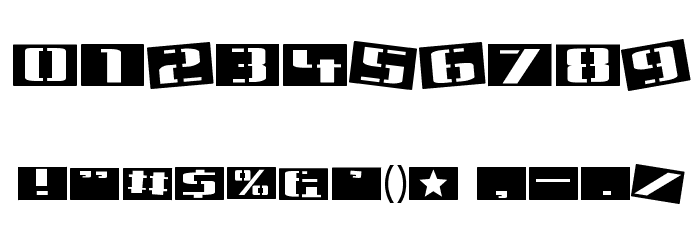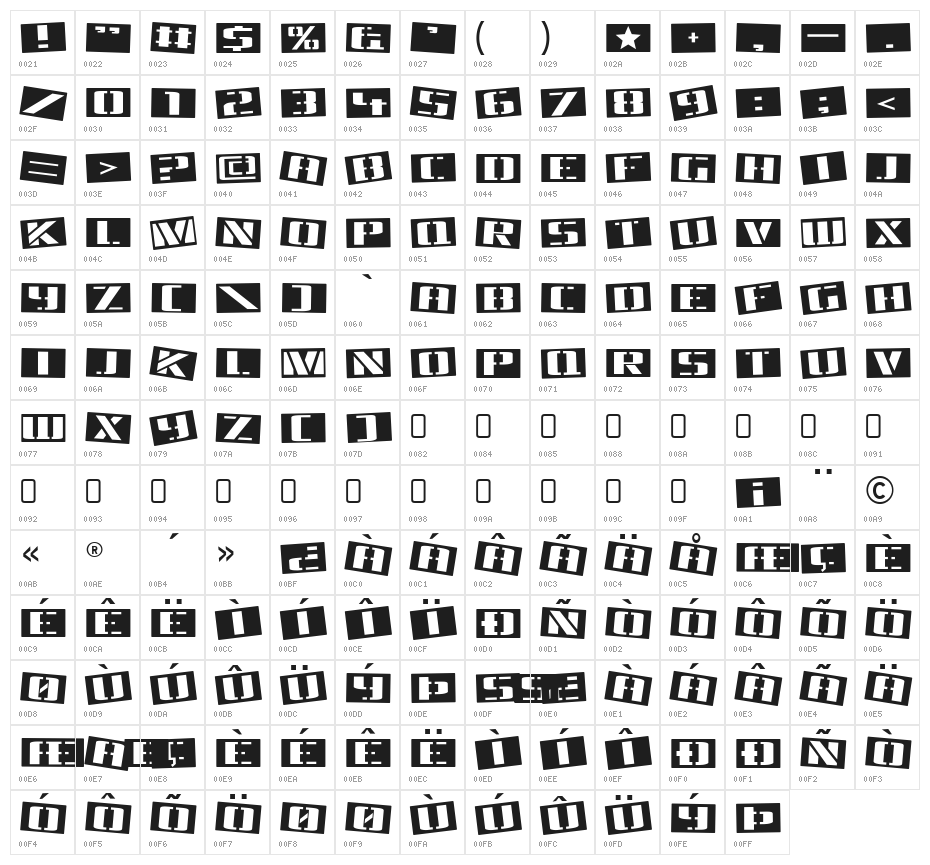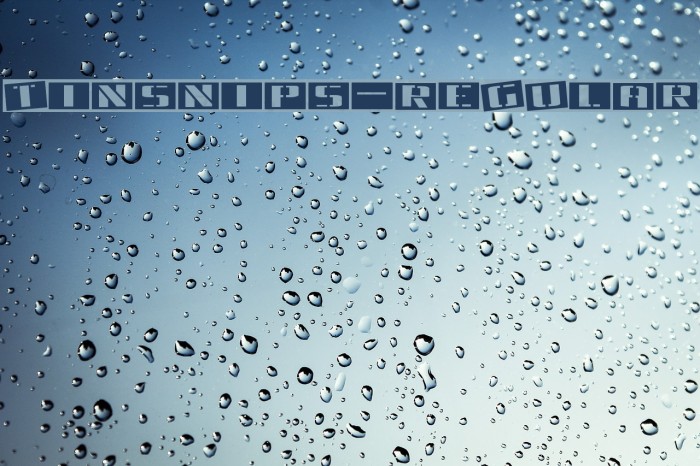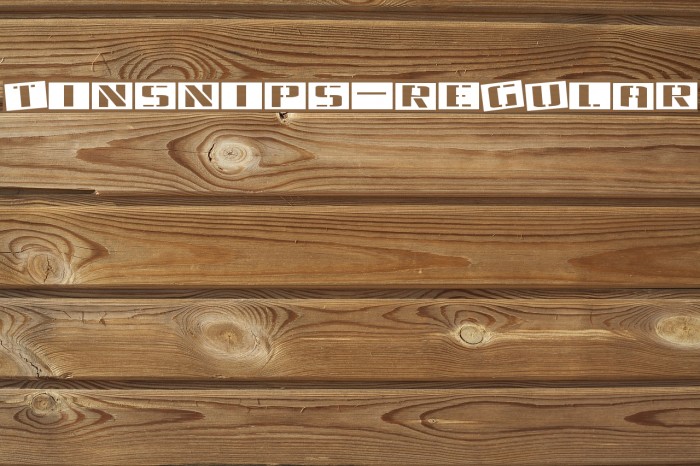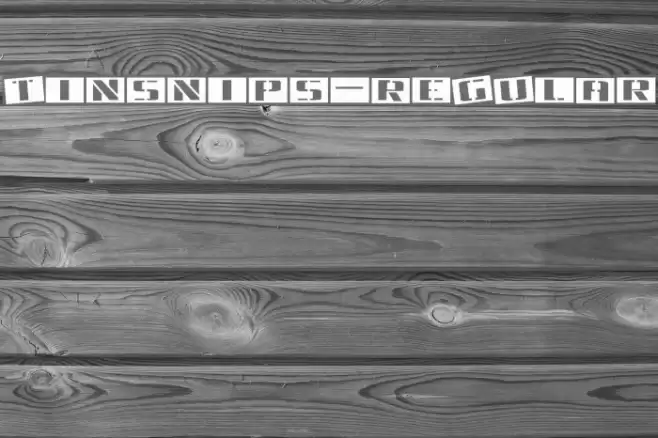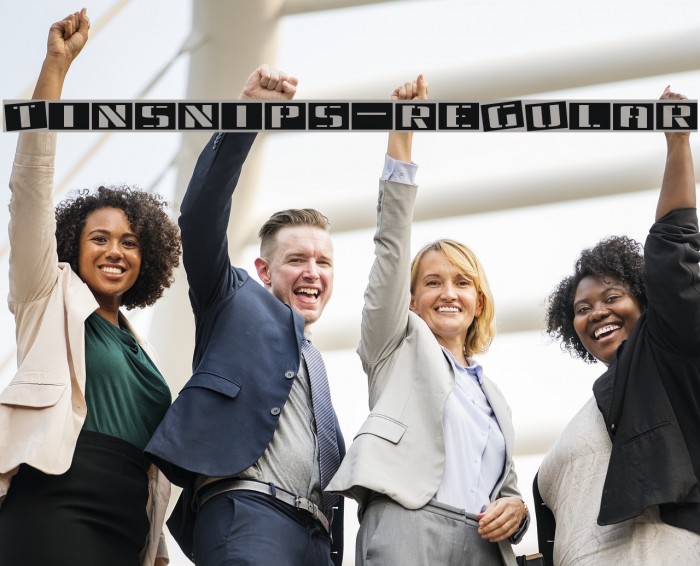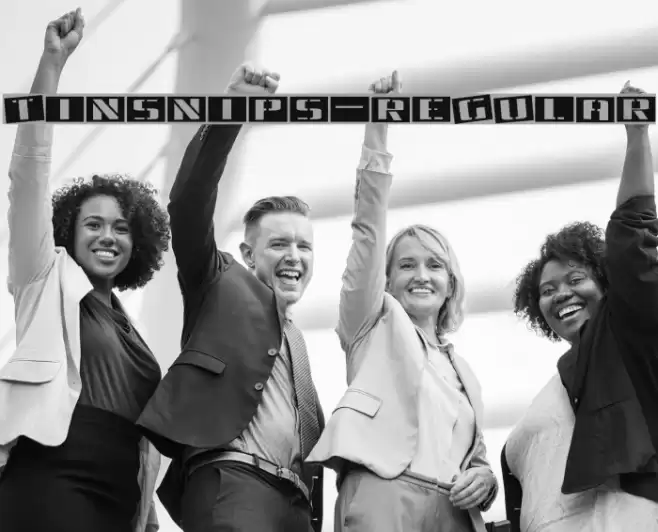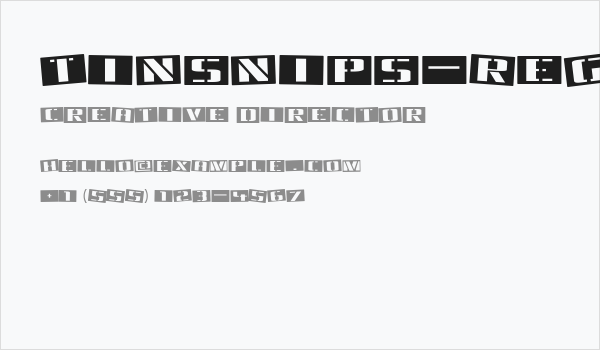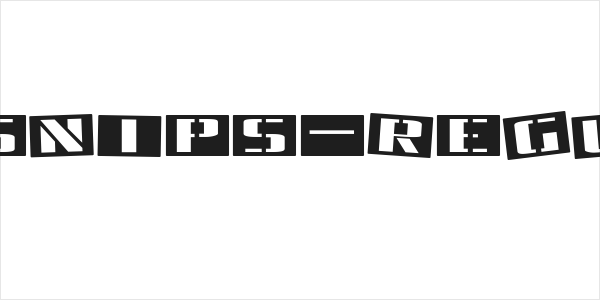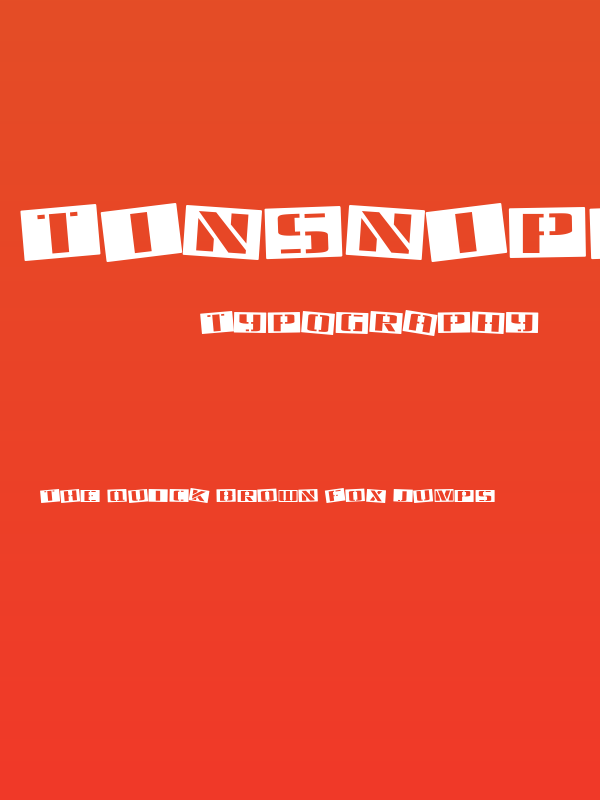
Tinsnips-Regular Font
Tinsnips-Regular Description
This font features a bold, stencil-like design with a distinct industrial and mechanical feel. Each character is enclosed within a blocky, irregular shape, giving it a rugged and edgy appearance. The letters and numbers are cut out from these shapes, creating a high-contrast look that is both striking and attention-grabbing. The font's unique style is reminiscent of cut-out metal or machinery parts, making it ideal for projects that require a bold and unconventional aesthetic. The characters are uniformly spaced, maintaining a consistent alignment despite the irregular shapes surrounding them.
| Overall Style | Industrial, Edgy |
| Proposed Projects | Ideal for posters, industrial-themed designs, branding for machinery or automotive companies, and any project needing a bold, unconventional look. |